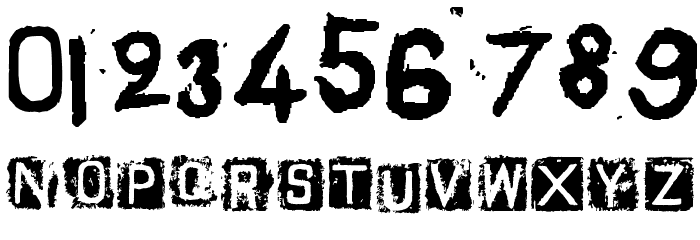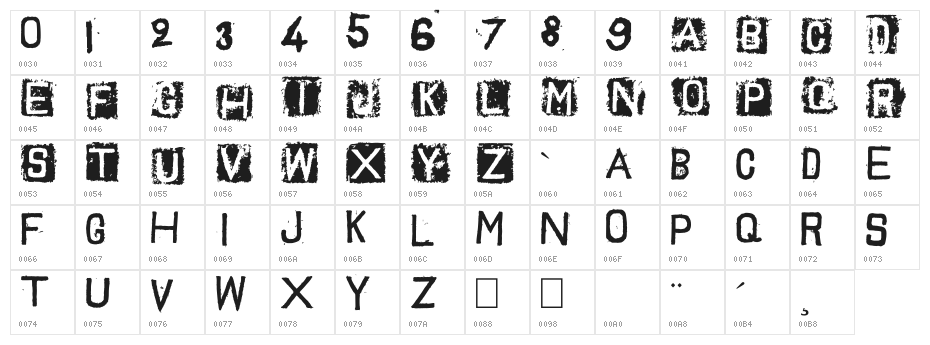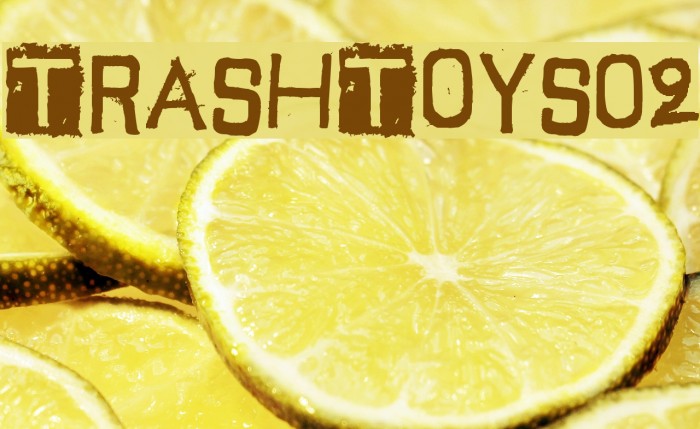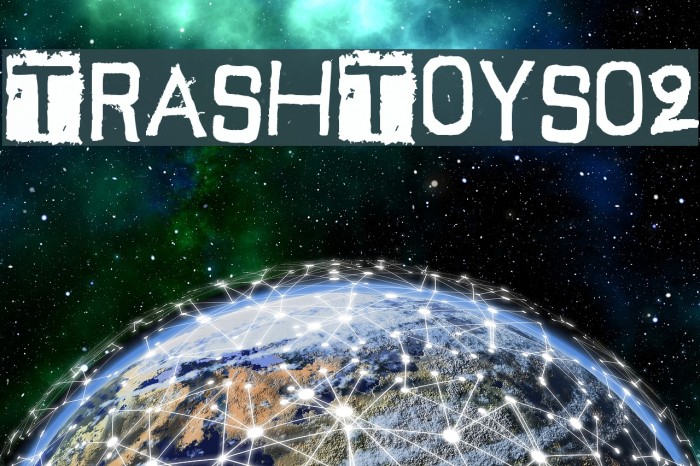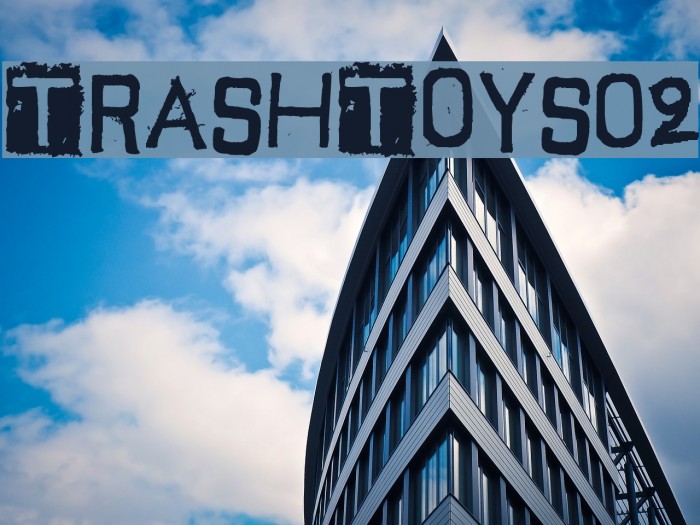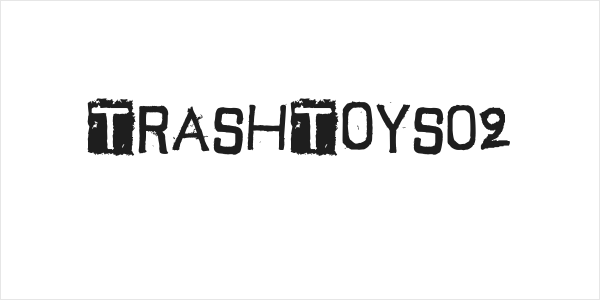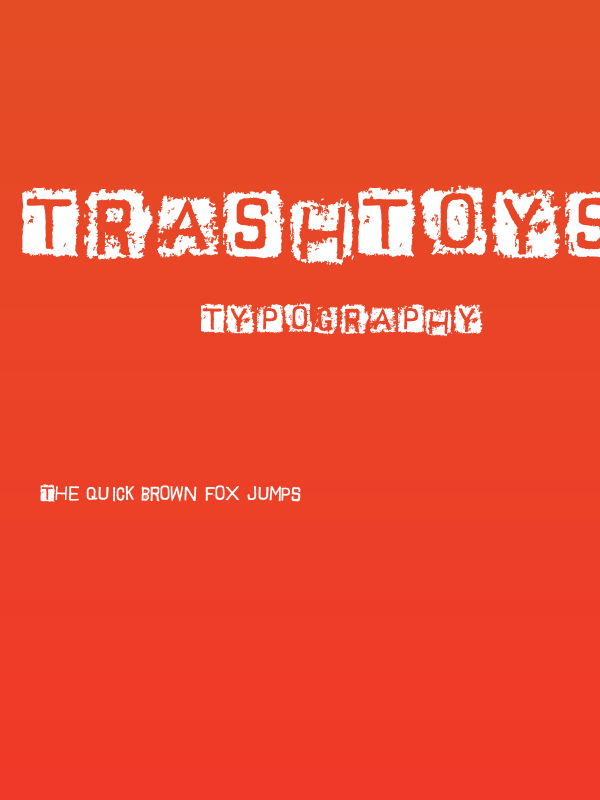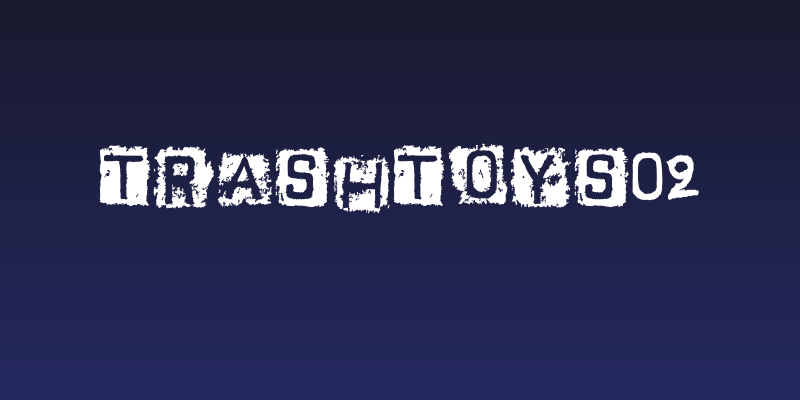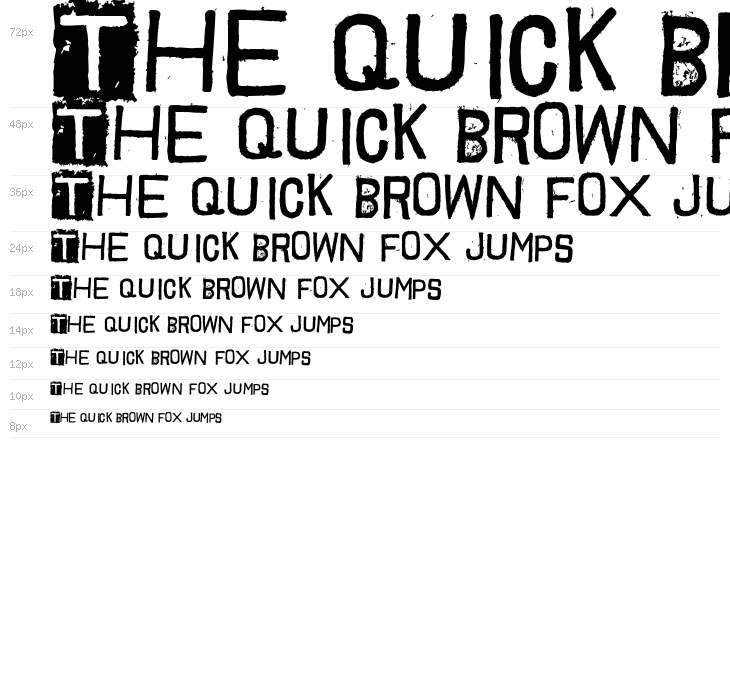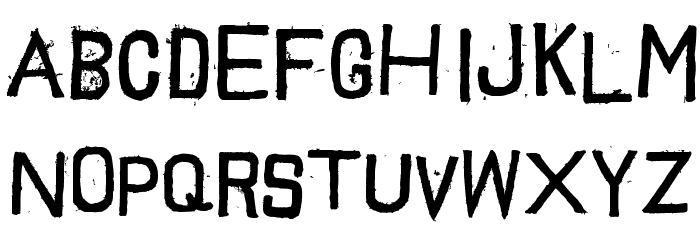
TrashToys02 Font
TrashToys02 Description
This font features a distressed, grunge style with a rough, textured appearance. Each character appears as if it has been stamped or printed with a worn-out ink pad, giving it an edgy and rebellious look. The uppercase and lowercase letters are consistent in style, maintaining the rugged texture throughout. Numbers and special characters also follow this distressed theme, making the font suitable for projects that require a raw, urban aesthetic. The irregular edges and varying thicknesses add to its unique character, making it stand out in any design.
| Overall Style | Grunge, Urban, Edgy |
| Proposed Projects | Ideal for album covers, street art designs, posters, and edgy branding projects. |